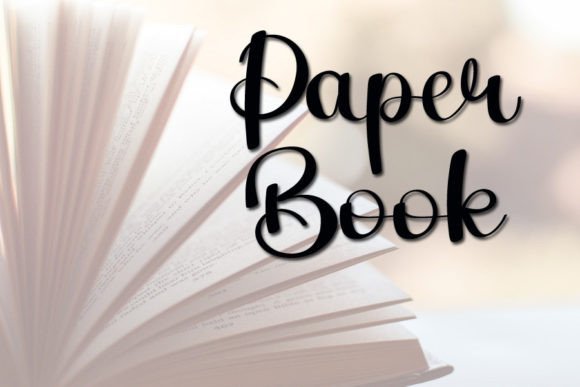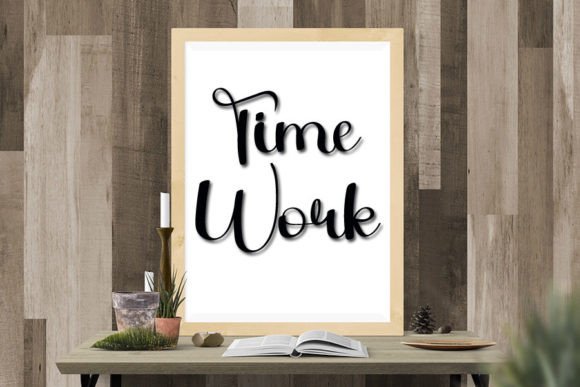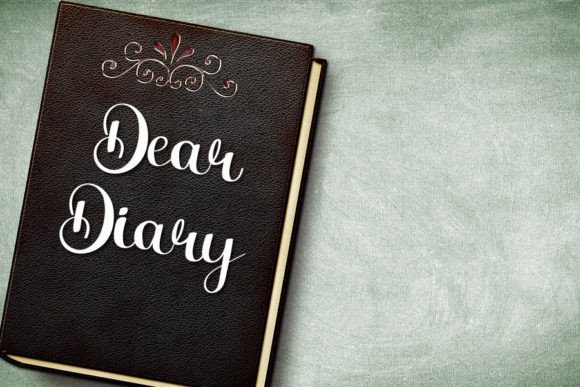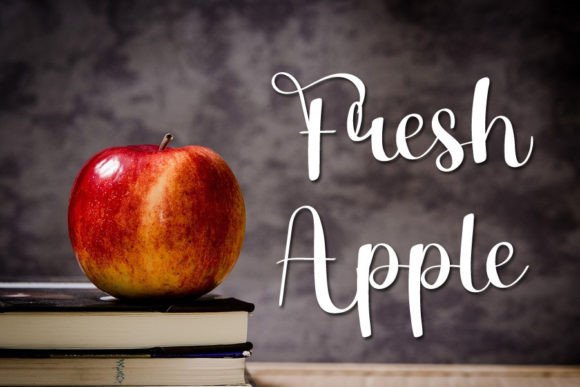
Discover the Charm of Digital: A Lovely Handwritten Font
In the world of digital design, fonts play a crucial role in conveying the tone and personality of a brand or creative project. Among the numerous font options available, Digital stands out as a lovely and timeless handwritten font that has captured the hearts of designers and crafters alike. In this article, we’ll explore the unique features of Digital and why it’s the perfect choice for creating eye-catching logos, branding, and quotes.
The Unique Touch of Digital Font
What sets Digital apart from other fonts is its distinctive and beautiful touch. Every letter in this font has been carefully crafted to exude a sense of elegance and sophistication, making it perfect for designs that require a personal and human touch. The unique character of each letter ensures that your design stands out from the crowd and leaves a lasting impression on your audience.
Ideal for Logos, Branding, and Quotes
Digital font is incredibly versatile and can be used in a variety of design applications. Its elegant and cursive style makes it an excellent choice for:
- Logos: Create a memorable and impactful logo that reflects your brand’s personality and values.
- Branding: Use Digital to develop a consistent visual identity across all your marketing materials, from business cards to website headers.
- Quotes: Add a touch of sophistication and elegance to your inspirational quotes, making them perfect for social media posts, posters, or flyers.
Why Designers and Crafters Love Digital
Designers and crafters appreciate fonts that are both aesthetically pleasing and easy to work with. Digital font checks all the boxes:
- Ease of use: Digital is a straightforward font to integrate into your designs, allowing you to focus on the creative process.
- Customization: The font’s unique characteristics provide ample opportunities for customization, ensuring your design stands out.
- Readability: Digital is clear and legible, making it perfect for both digital and print applications.
Tips for Using Digital Font Effectively
To get the most out of Digital font, consider the following tips:
- Pair with complementary fonts: Combine Digital with sans-serif fonts for a striking contrast.
- Experiment with colors: Digital looks stunning in a range of colors, from bold and bright to soft and pastel.
- Play with sizes: Use varying font sizes to create visual hierarchy and add emphasis to key elements.
In conclusion, Digital font is a timeless and lovely handwritten font that offers a unique and beautiful touch to any design. Its versatility, readability, and aesthetic appeal make it an excellent choice for designers and crafters looking to create eye-catching logos, branding, and quotes. With its ease of use and customization options, Digital is sure to become a favorite in your font collection.